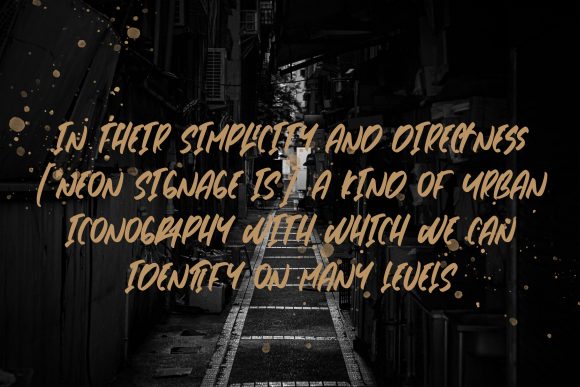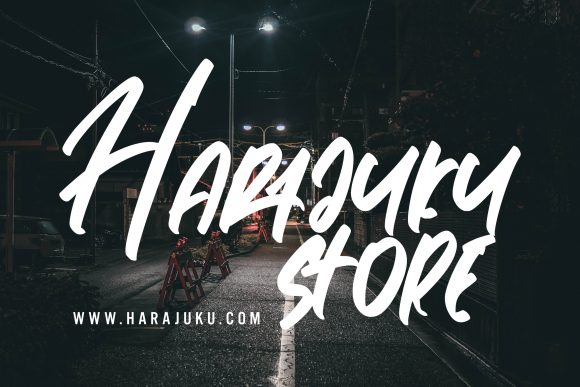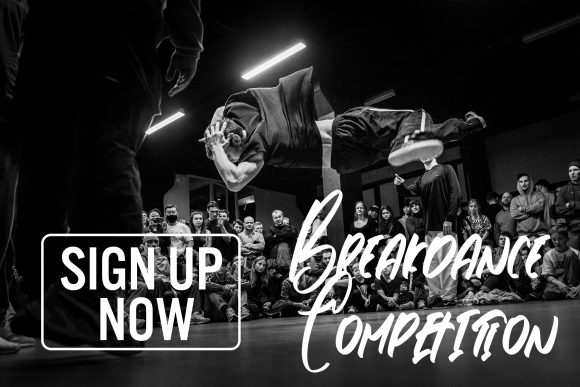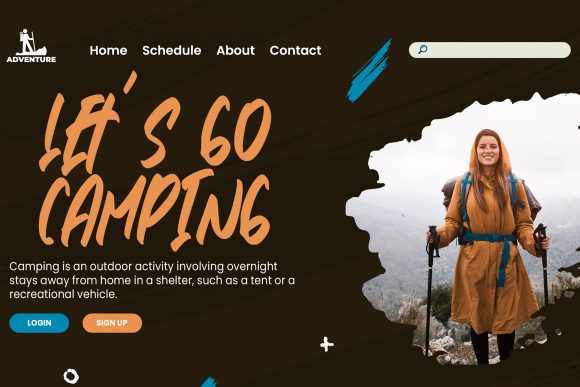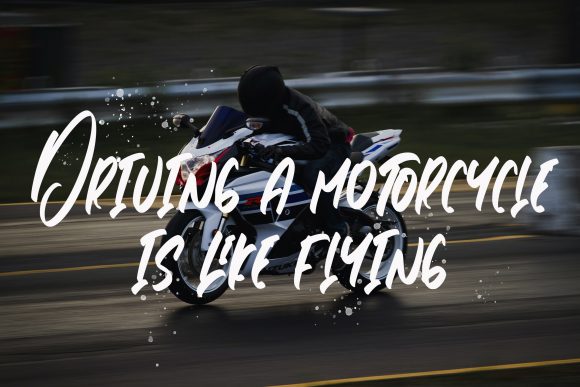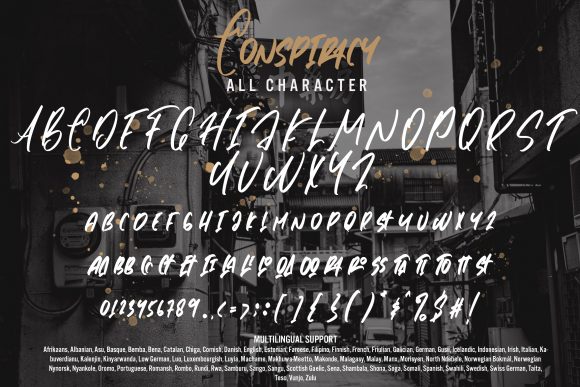
Unleash Your Creativity with Conspiracy Font: The Ultimate Urban Styled Display Font
Are you a designer, crafters, or DIY enthusiast looking for a font that can add a touch of edginess and sophistication to your projects? Look no further than Conspiracy Font, an urban styled, bold paint brushed display font that’s taking the design world by storm. In this article, we’ll dive into the features, benefits, and uses of Conspiracy Font, and explore how it can elevate your creations to the next level.
What is Conspiracy Font?
Conspiracy Font is a bold, paint-brushed display font that’s inspired by the gritty, urban landscapes of city streets. With its rough, textured look and bold lettering, this font is perfect for designers who want to add a touch of industrial chic to their projects. Whether you’re working on a logo, poster, or social media graphic, Conspiracy Font is sure to make a statement.
Key Features of Conspiracy Font
- Urban Styled: Conspiracy Font is inspired by the urban landscape, with a rough, textured look that’s perfect for designers who want to add a touch of grit to their projects.
- Bold and Eye-Catching: With its bold lettering and paint-brushed texture, Conspiracy Font is sure to grab attention and make a statement.
- Versatile: Conspiracy Font can be used on a variety of projects, from logos and posters to social media graphics and more.
Benefits of Using Conspiracy Font
So why choose Conspiracy Font for your next project? Here are just a few benefits of using this amazing font:
- Adds Edginess and Sophistication: Conspiracy Font adds a touch of industrial chic to any project, making it perfect for designers who want to create something bold and eye-catching.
- Stand Out from the Crowd: With its unique, textured look, Conspiracy Font is sure to make your project stand out from the crowd and grab attention.
- Perfect for Urban-Inspired Projects: Whether you’re working on a project that’s inspired by the city streets or just want to add a touch of urban flair, Conspiracy Font is the perfect choice.
Uses for Conspiracy Font
So what can you use Conspiracy Font for? The possibilities are endless! Here are a few ideas to get you started:
- Logos and Branding: Conspiracy Font is perfect for creating bold, eye-catching logos and branding materials that make a statement.
- Posters and Flyers: Add a touch of urban flair to your posters and flyers with Conspiracy Font, perfect for promoting events, products, or services.
- Social Media Graphics: Conspiracy Font is a great choice for social media graphics, including Facebook posts, Instagram stories, and more.
- Packaging and Labels: Add a touch of industrial chic to your packaging and labels with Conspiracy Font, perfect for products that want to stand out on store shelves.
Conspiracy Font is an urban styled, bold paint brushed display font that’s perfect for designers who want to add a touch of edginess and sophistication to their projects. With its unique, textured look and bold lettering, this font is sure to make a statement and grab attention. Whether you’re working on a logo, poster, or social media graphic, Conspiracy Font is a great choice for any project that needs a touch of urban flair.